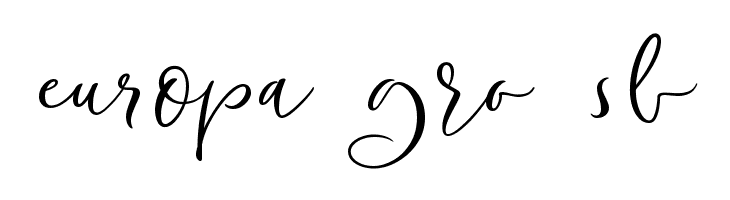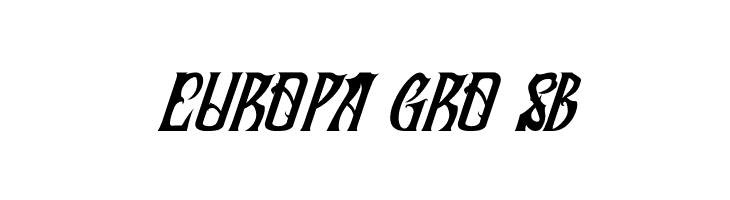
A graceful script font with elegant, flowing cursive strokes.
A bold, gothic-style font with intricate details and sharp edges.
A decorative script font with elegant loops and swirls, perfect for creative projects.
An elegant script font with flowing, decorative swirls and loops.
An ornate, vintage-style font with intricate curls and flourishes.
A dynamic and energetic script font with fluid, cursive letterforms.
An elegant and flowing script font with ornate uppercase and smooth lowercase letters.
A delicate, flowing script font with elegant, interconnected strokes.
A bold, calligraphic font with sharp, angular strokes and a gothic influence.
A dynamic and expressive handwritten font with fluid, flowing letterforms.